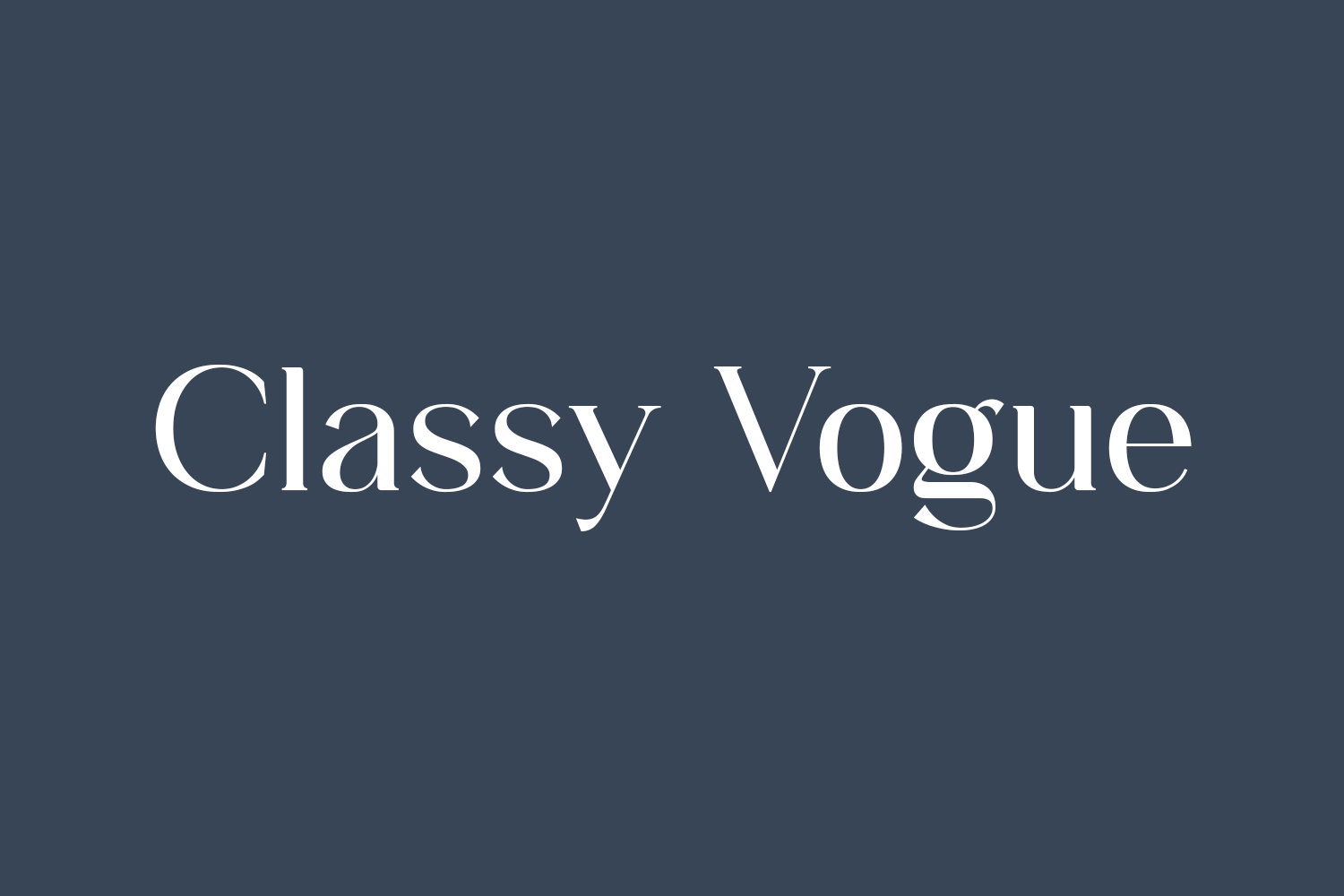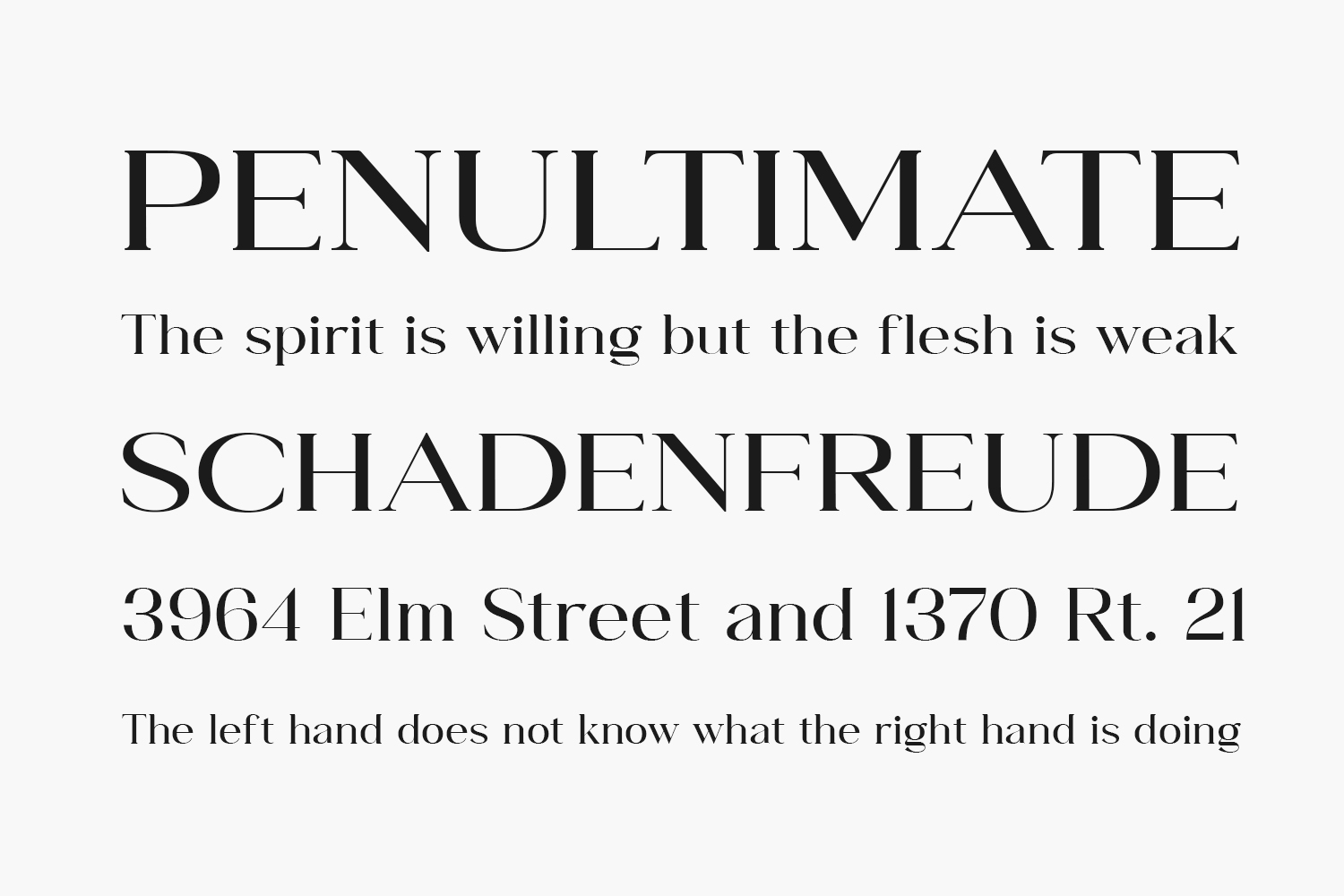
Classy Vogue Free Font is an elegant modern serif font that’s both classy and editorial. Classy Vogue Free Font is free for personal use only. Please purchase the full version for commercial use.
Designed by Variatype